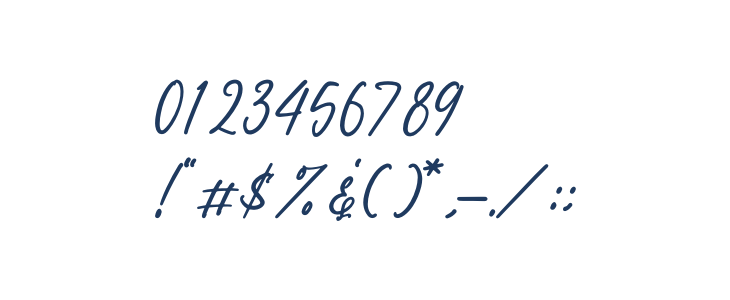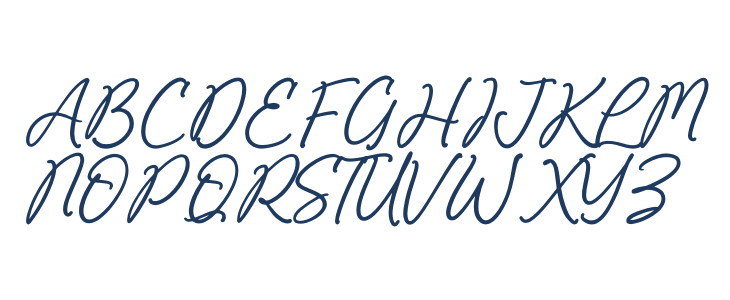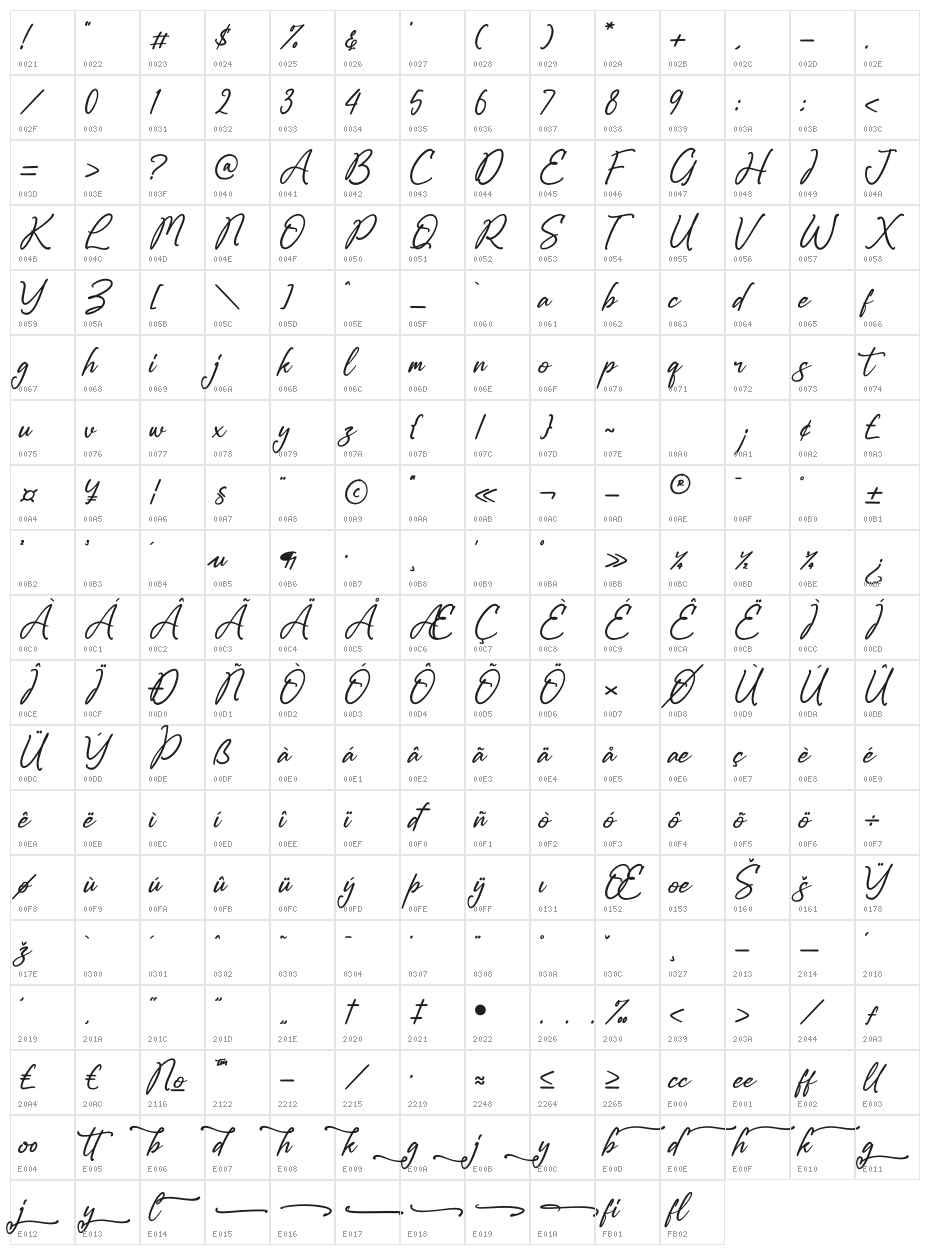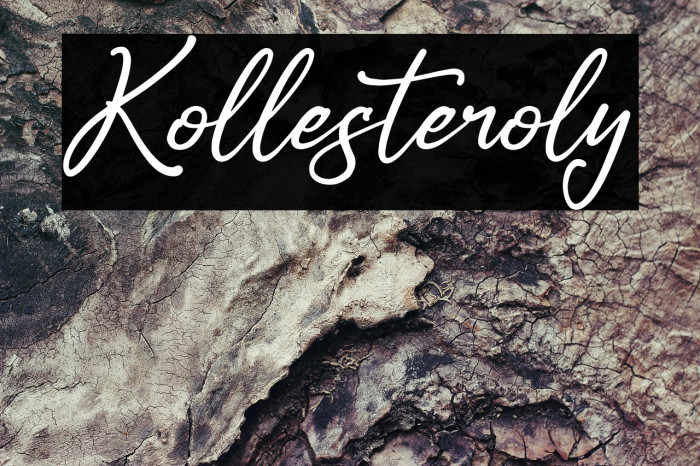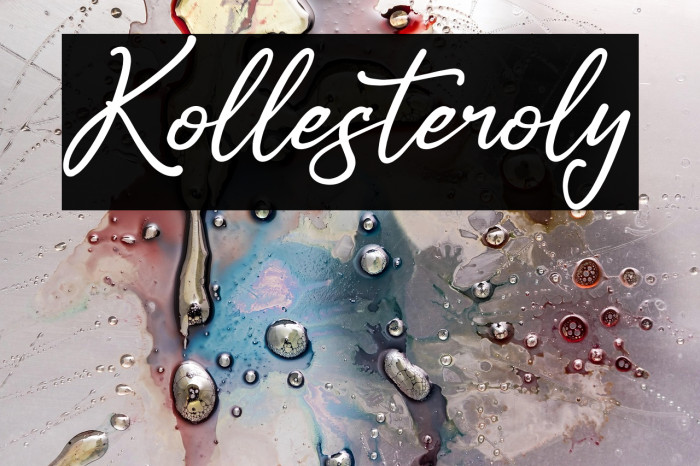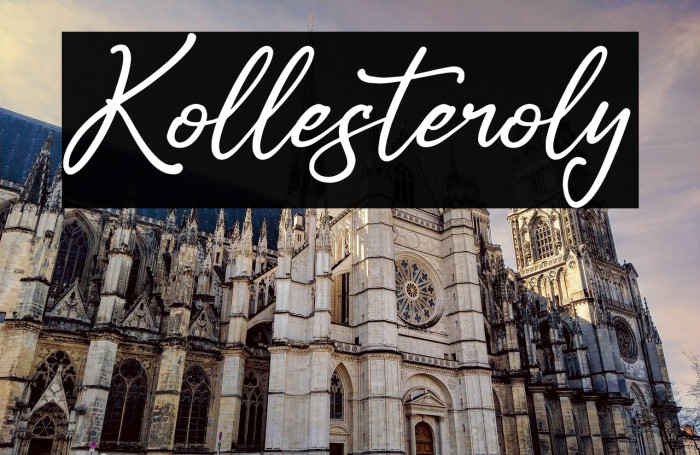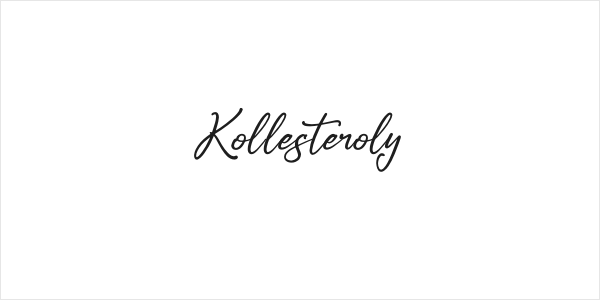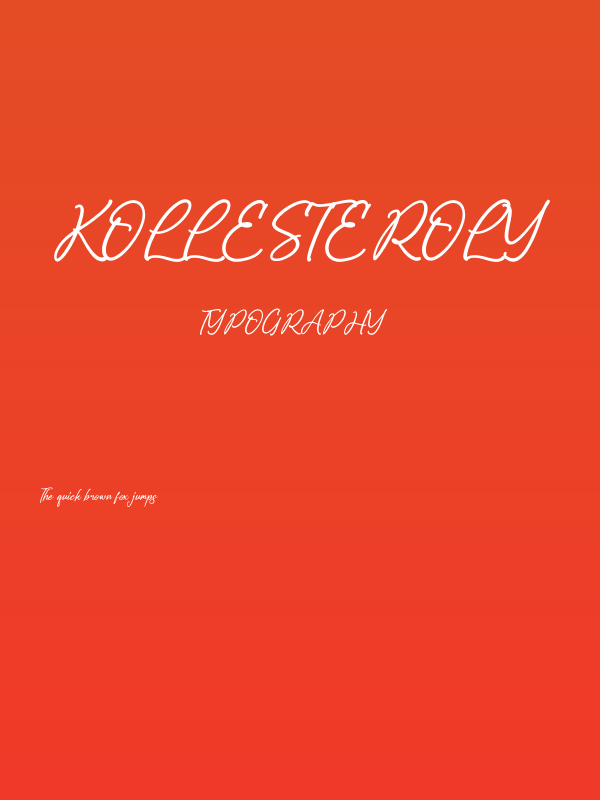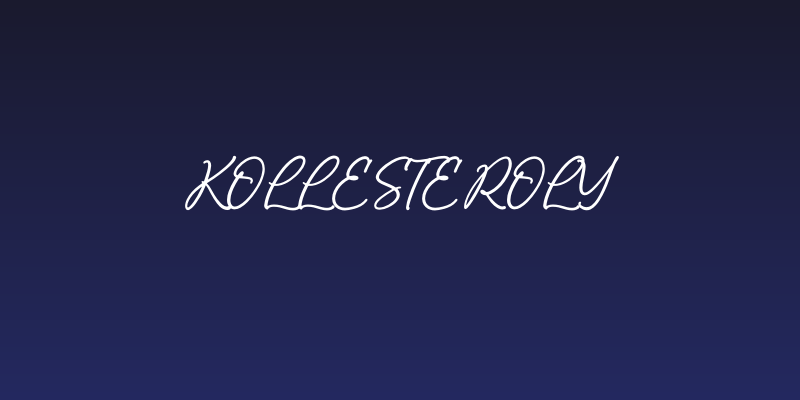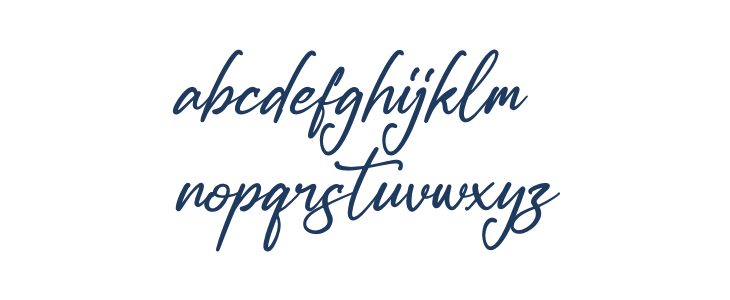
Kollesteroly Font
Kollesteroly Description
Elegant, flowing script font with smooth, connected strokes and a handwritten feel. The uppercase letters are slightly more ornate with loops and flourishes, while the lowercase letters maintain a consistent, fluid style. Numbers and punctuation marks follow the same cursive aesthetic.
| Overall Style | Elegant, Modern Script |
| Use Case | Headlines, Logos, Invitations, Decorative text |
| Proposed Projects | Invitations, greeting cards, branding for luxury or feminine products, logos, and decorative headlines. |